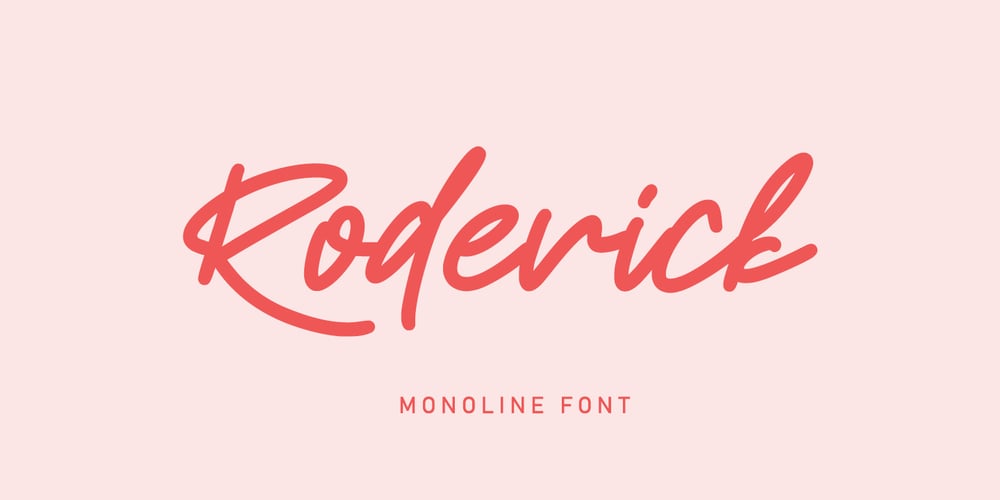
Roderick Font Family was designed by Asep Rendi and published by Arendxstudio. Roderick contains 1 styles and family package options. Roderick Is a retro style monoline font that you can use for logos, branding names, posters, podcasts and so on. This is perfect for you all.It features Uppercase and Lowercase, Numbers and Punctuation, Multi-lingual support, Ligatures, Alternates.There it is!I really hope you enjoy it